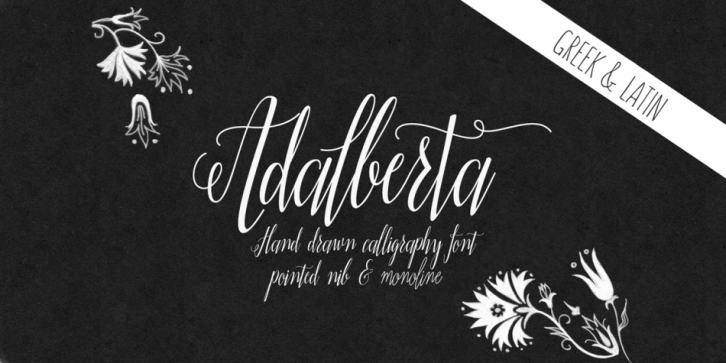
Adalberta Pro is a script and modern calligraphy font family. This typeface has two styles and was published by Anastasia Dimitriadi.
Adalberta Pro is an elegant hand drawn calligraphy font, offered in two styles: the pointed nib and the monolinear style. It is suitable for a variety of applications such as logos, stationery design, invitations, labels, merchandise products, etc.
It contains 950 glyphs with standard ligatures, stylistic alternates, swashes, 2 styles of initial and terminal letters and a stylistic class. It supports Central, Eastern, Western European, Baltic, Turkish and Greek languages and delivered in Opentype and Truetype format.